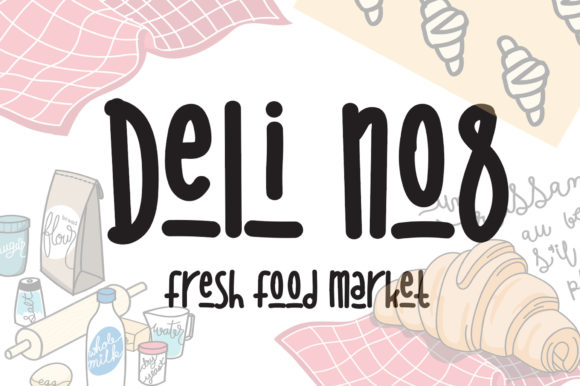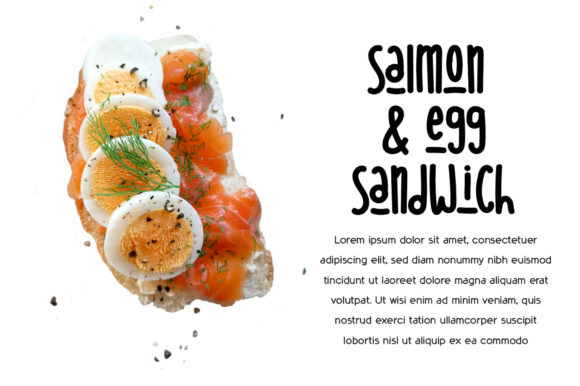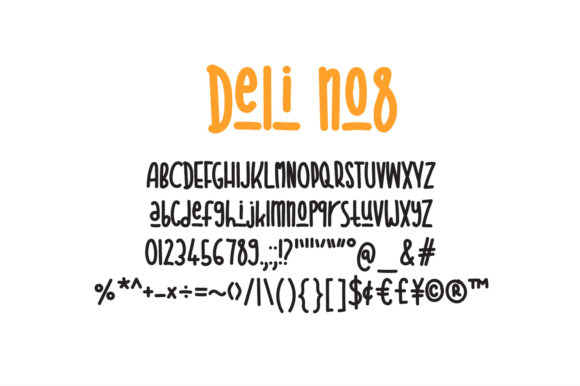
DeliNo8 Font
About DeliNo8 Font
DeliNo8 is a cute and quirky handwritten font that can be used for all chalkboard quotes or teaching material! Its authentic look will add a personal and realistic feel to your designs.